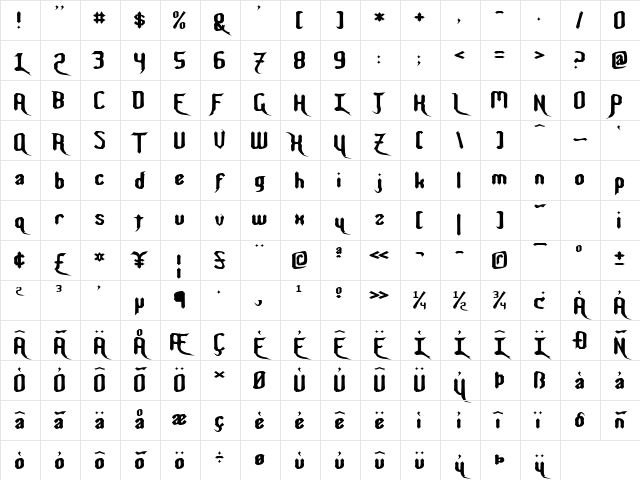
Nightwarrior Normal Free Font
Nightwarrior Normal
Nightwarrior Family
Complete Nightwarrior Normal glyph index. Displaying only characters natively supported by Nightwarrior Normal font.
Design Context for Nightwarrior
Nightwarrior is a composed and adaptable typeface that performs quietly and consistently across a wide range of design contexts.